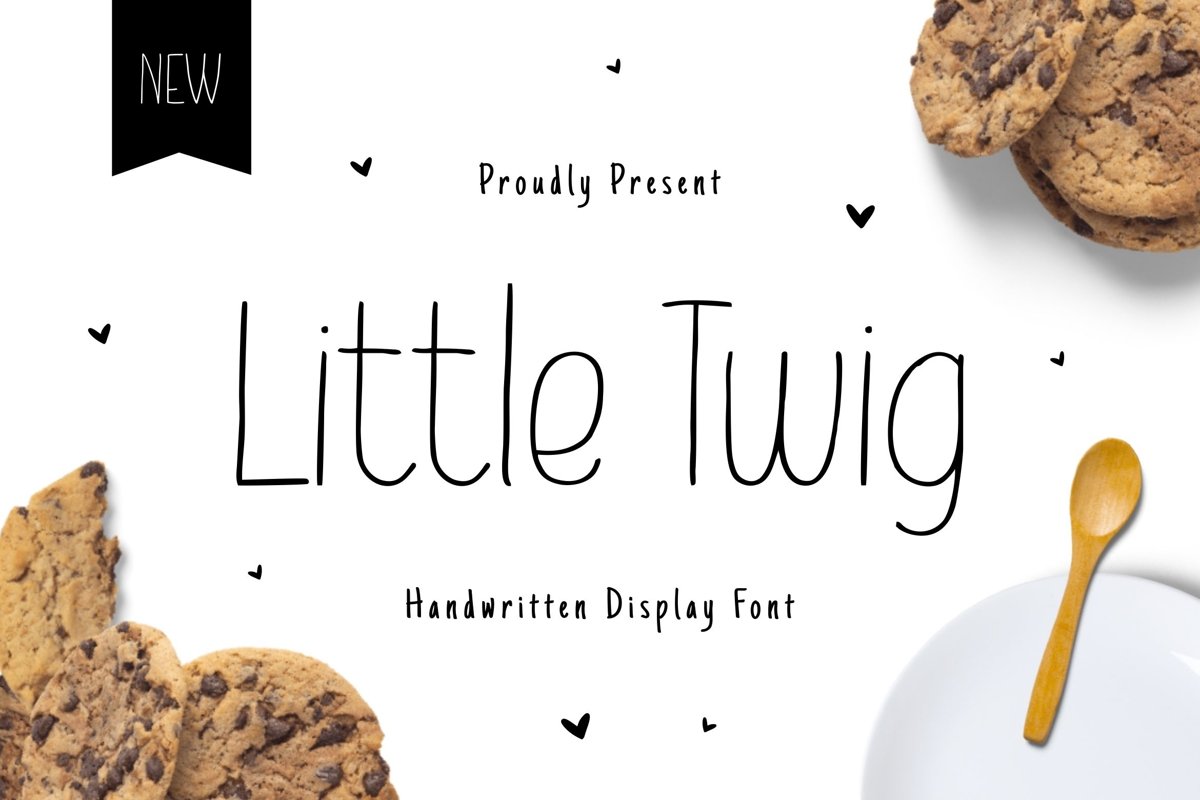
Little Twig - suitable for some designs such as the logotype, brand, packaging, quotes, music poster, t-shirt, cover book and more custom design. The features uppercase, lowercase, numeral, punctuation & symbol, multilingual support.
Little Twig